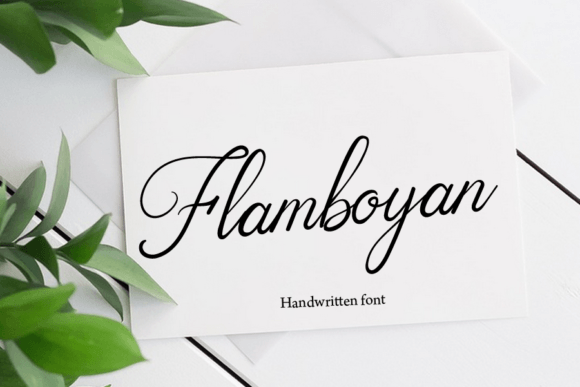
Journey into a realm of elegance and refinement with Flamboyan Font, a script font meticulously designed to elevate your designs with its enchanting curves and sophisticated charm. Immerse yourself in the world of UI design, where Flamboyan shines as the perfect companion for crafting user interfaces that exude beauty and functionality.
With its graceful strokes and delicate flourishes, Flamboyan Font brings a touch of timeless elegance to your digital creations. From sleek websites to captivating app interfaces, this font adds a touch of sophistication that sets your designs apart from the ordinary. Experience the magic of Flamboyant Font and watch your designs transform into masterpieces that resonate with users on a deeper level.
Step into the realm of creativity and let Flamboyan Font guide you towards exceptional design solutions. Its versatility knows no bounds, seamlessly adapting to a wide range of UI projects. Whether you're designing for mobile apps, websites, or captivating landing pages, Flamboyan Font effortlessly elevates your designs, leaving a lasting impression on users. Its ability to convey elegance and professionalism makes it the perfect choice for brands looking to establish a strong and distinctive online presence.
Indulge in the beauty of Flamboyan Font and unlock your creative potential. This font is more than just a collection of letters and symbols; it's a gateway to a world of visual enchantment where every design element dances in perfect harmony. As you craft your UI designs, Flamboyan Font becomes your trusted companion, guiding you towards creating user interfaces that captivate and inspire.
Embrace the allure of Flamboyan Font and embark on a journey of design excellence. Its delicate strokes and refined aesthetic will transform your UI designs into works of art, attracting users with its undeniable charm and sophistication. Experience the power of Flamboyan Font and unlock the true potential of your creative vision.